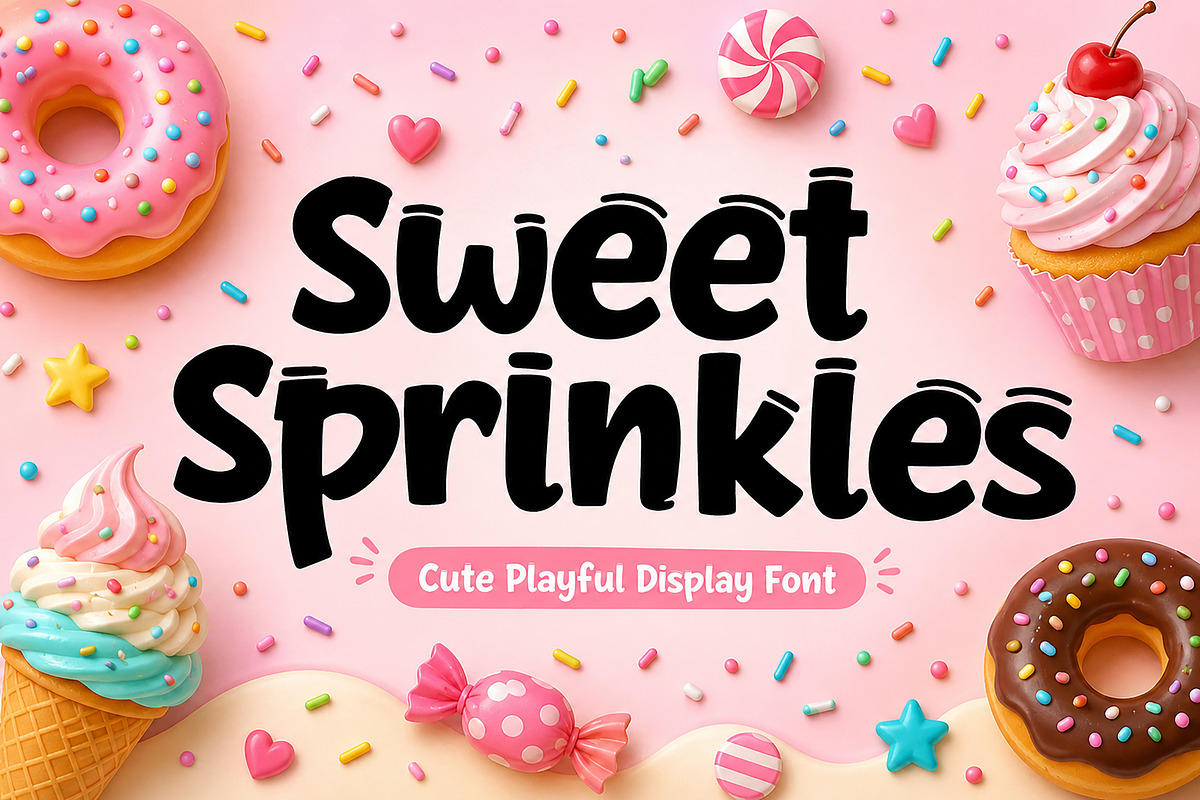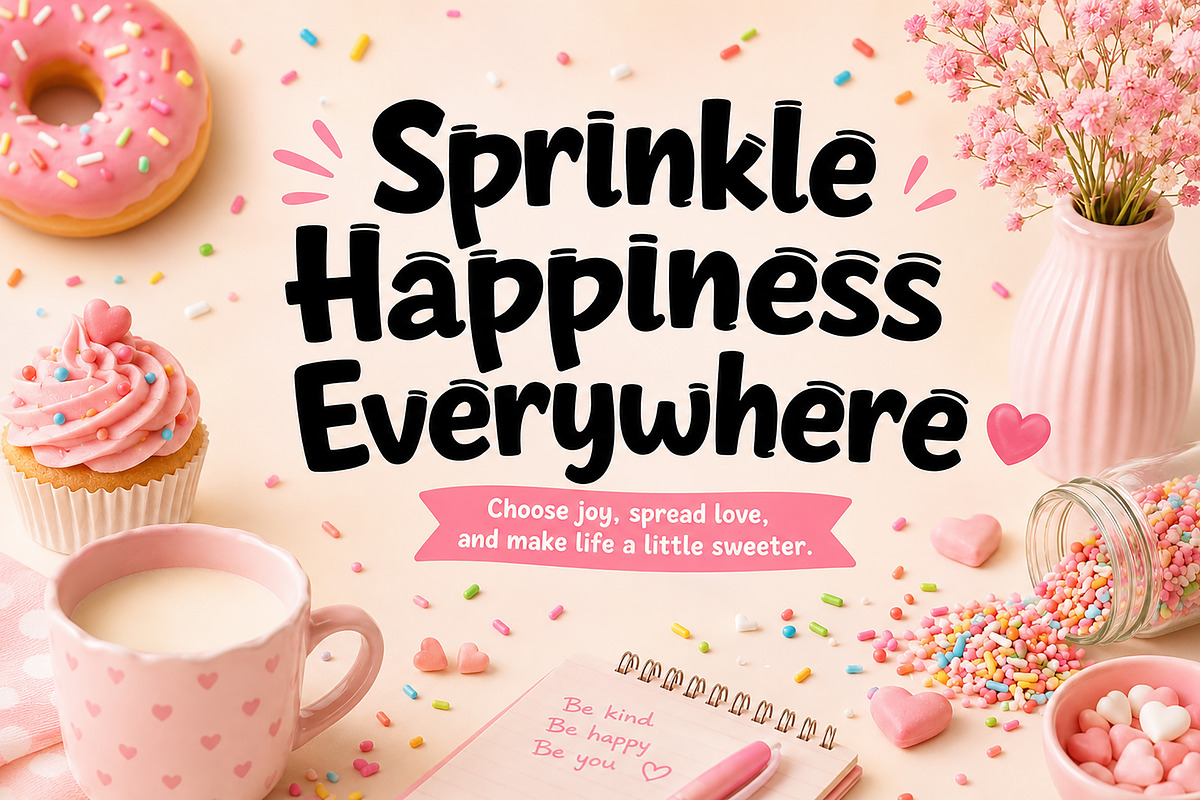
Sweet Sprinkles
Sweet Sprinkles – Cute Playful Display Font
Introducing Sweet Sprinkles, a delightful and playful display font designed to bring joy, sweetness, and creativity to your projects. Inspired by colorful candies, cupcakes, sprinkles, and all things fun, this font features bold rounded characters with a cheerful personality that instantly captures attention.
Perfect for children's designs, bakery branding, birthday invitations, toy packaging, social media graphics, storybooks, stickers, t-shirts, mugs, pillows, printable products, and more. Whether you're creating a cute logo, crafting a fun quote, or designing products for kids, Sweet Sprinkles adds a charming and friendly touch to every design.
Its playful style makes it ideal for projects that need a warm, happy, and approachable feel while maintaining excellent readability.
Children's Books
Kids Branding
Bakery & Dessert Branding
Birthday Invitations
Toy Packaging
Stickers & Labels
T-Shirt Designs
Mug Designs
Pillow Designs
Printable Products
Posters & Quotes
YouTube Thumbnails
Classroom Materials
Cricut & Silhouette Projects
Uppercase Letters
Lowercase Letters